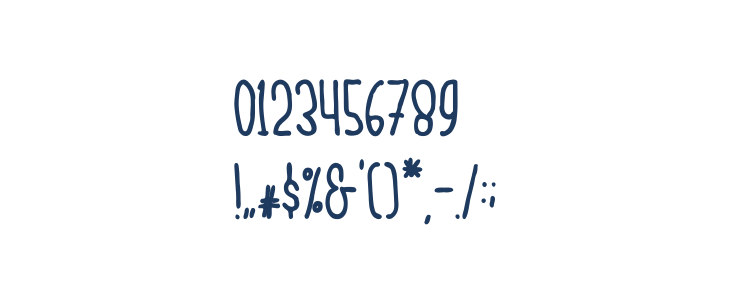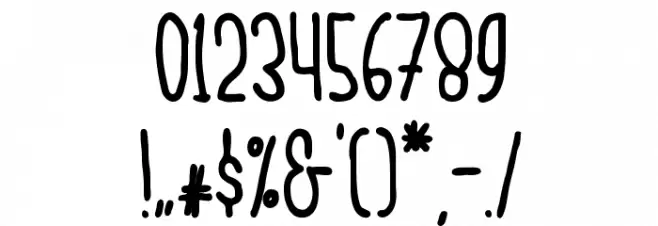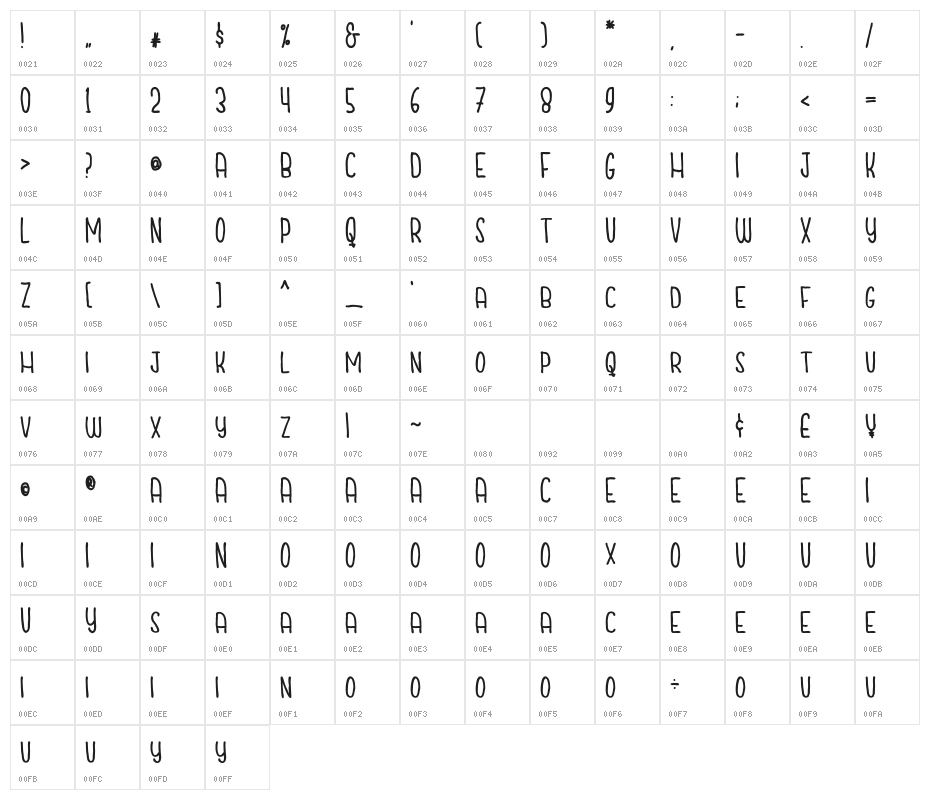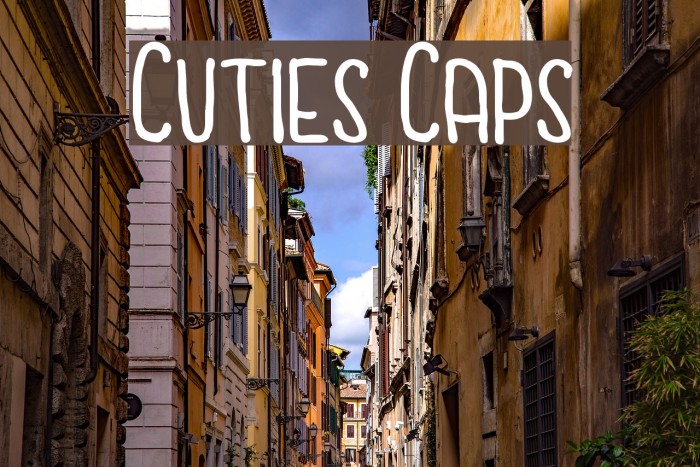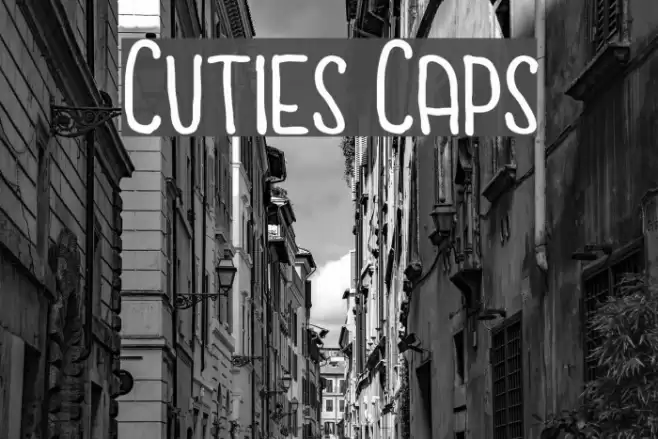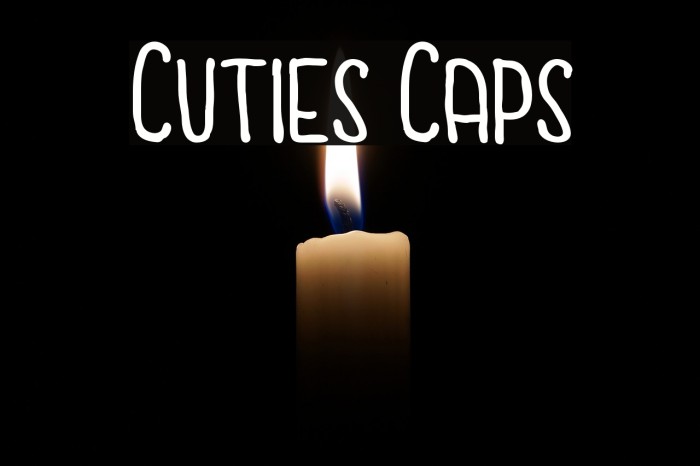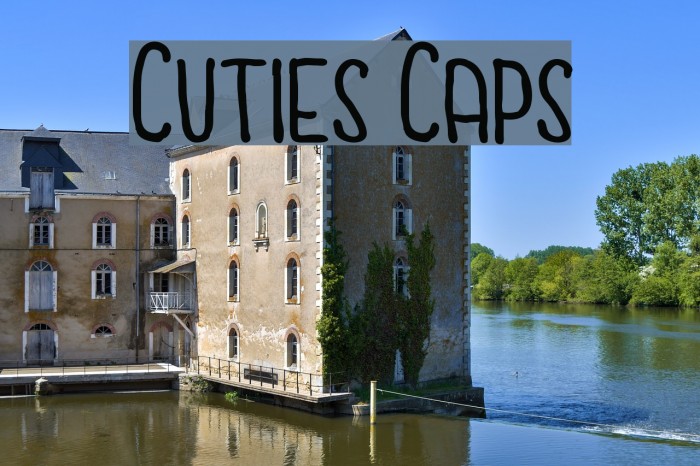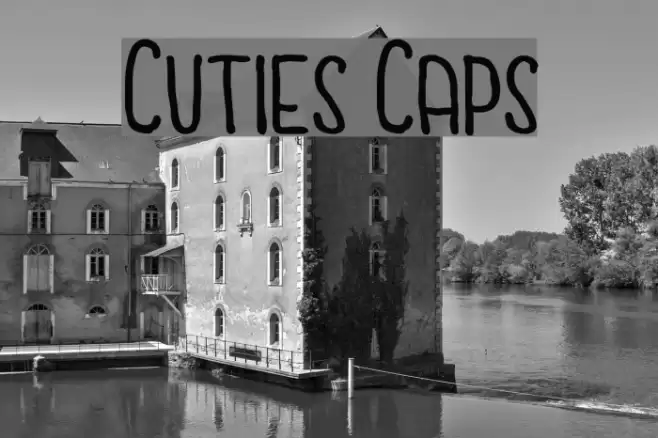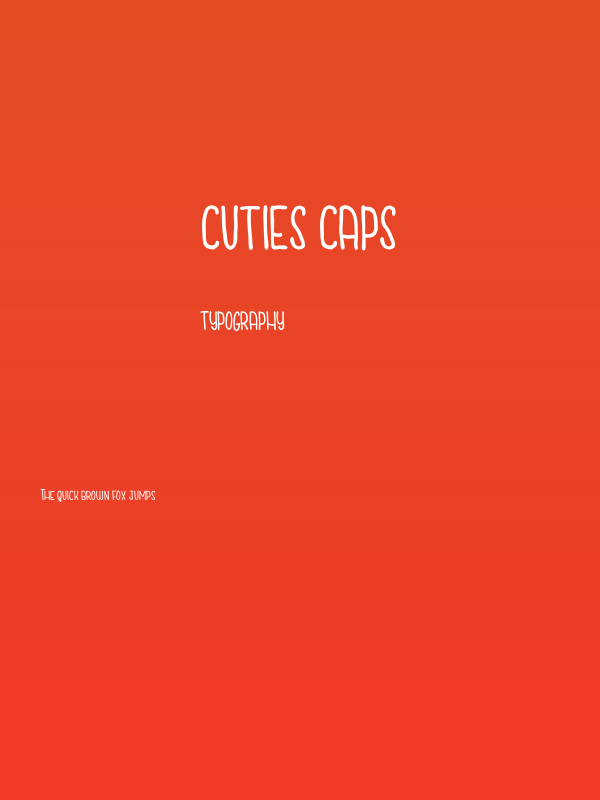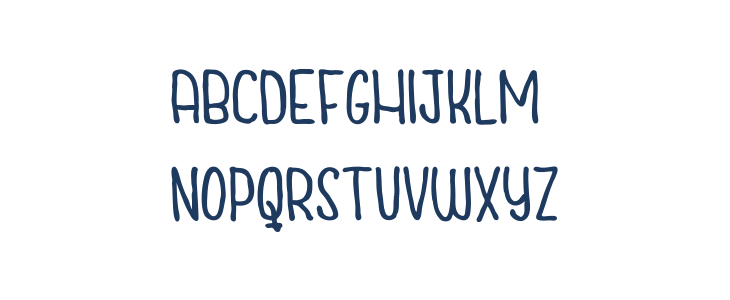
Cuties Caps Font
Cuties Caps Description
This playful and whimsical font features a hand-drawn style with rounded edges and a slightly irregular baseline, giving it a friendly and approachable appearance. The characters are bold and have a consistent stroke width, which enhances readability while maintaining a casual, informal vibe. The uppercase and lowercase letters are distinct yet harmoniously designed, with a slight slant that adds to the dynamic feel. The numerals and special characters are crafted with the same playful spirit, making this font suitable for a variety of creative applications.
| Proposed Projects | Ideal for children's books, playful branding, greeting cards, and social media graphics. |